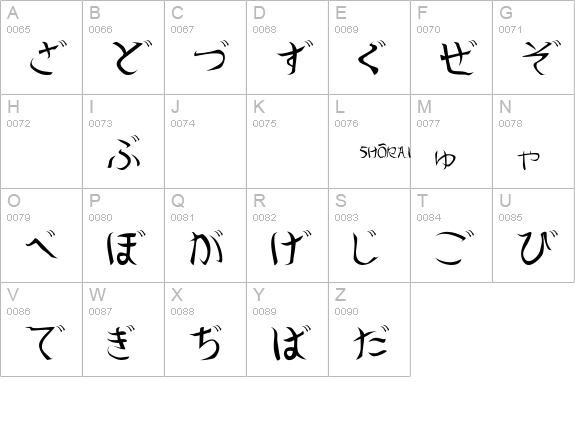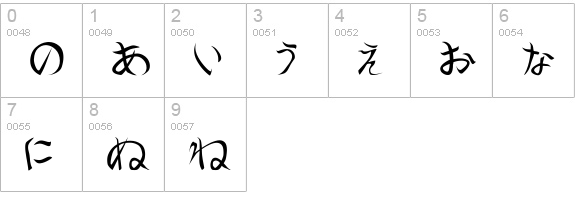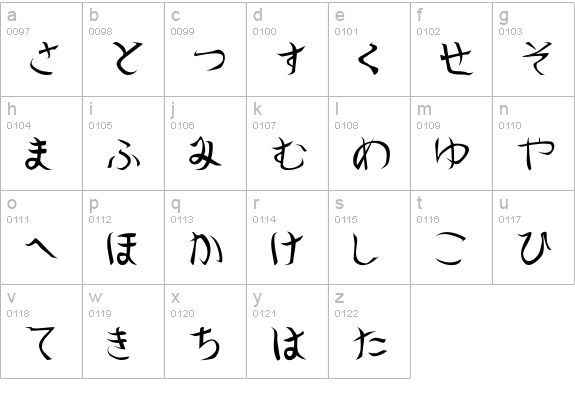
Shoraei Font Details
Shoraei font is a stunning and versatile typeface that will elevate any design project to new heights. With its elegant curves, balanced letterforms, and unique personality, this font is perfect for both headlines and body text. It effortlessly combines traditional calligraphy with a modern twist, making it suitable for a wide range of applications. What sets Shoraei font apart is not only its exceptional design but also its accessibility. It is available for free download exclusively at FontsMarket.com, making it a valuable asset for designers, students, and enthusiasts alike. This font allows anyone to bring their creative visions to life without having to compromise on quality or budget. Whether you are working on a branding project, editorial design, packaging, or even a personal project, Shoraei font will add a touch of sophistication and elegance. Its versatility allows it to adapt to various design styles, from classic and timeless to contemporary and cutting-edge. With its extensive character set, Shoraei font supports multiple languages, making it a truly global typeface. It features a wide range of ligatures and alternative characters, allowing designers to create unique and personalized typography. The attention to detail in Shoraei font is truly remarkable. Each glyph is meticulously crafted, ensuring smooth and harmonious letterforms. The subtle variations in stroke width and the delicate curves give this font a distinct and memorable appearance. In conclusion, Shoraei font is a must-have for any designer looking to add a touch of elegance and sophistication to their projects. Its stunning design, accessibility, and versatility make it suitable for a wide range of applications. Make sure to visit FontsMarket.com to download this font for free and unlock its endless possibilities.